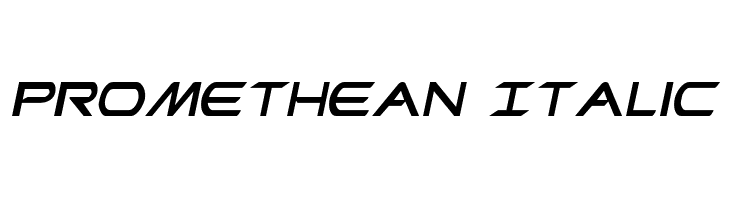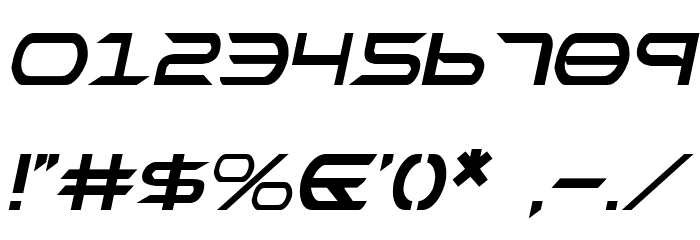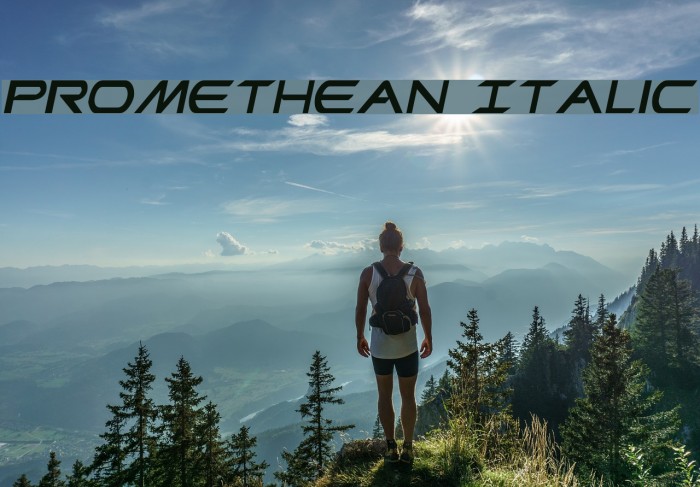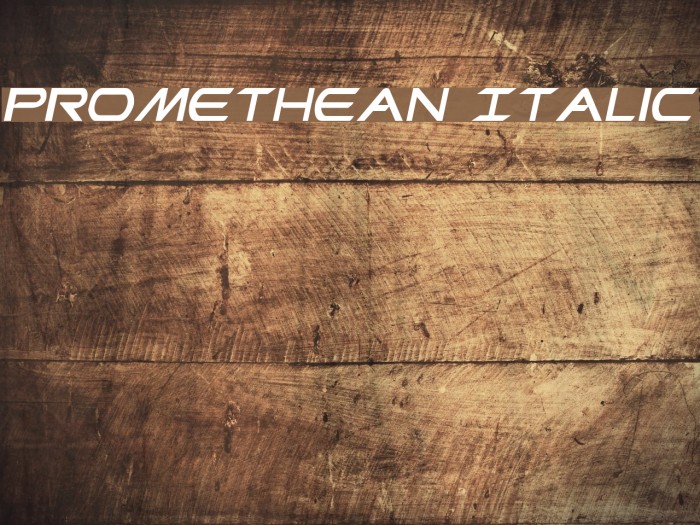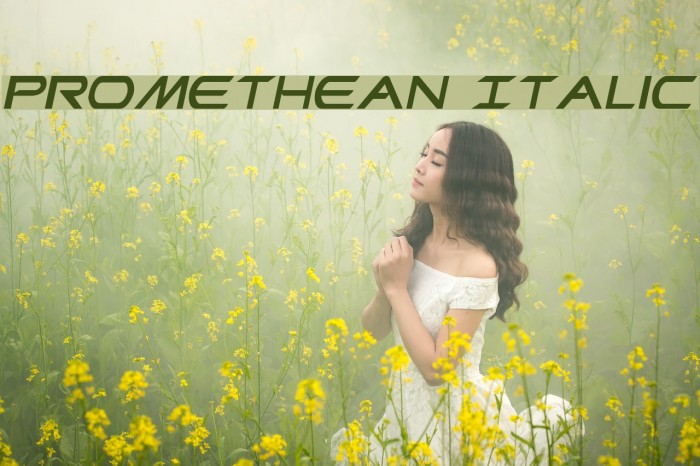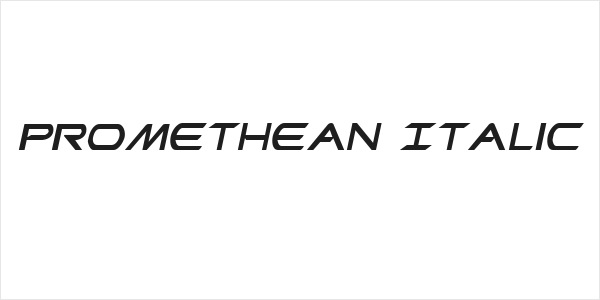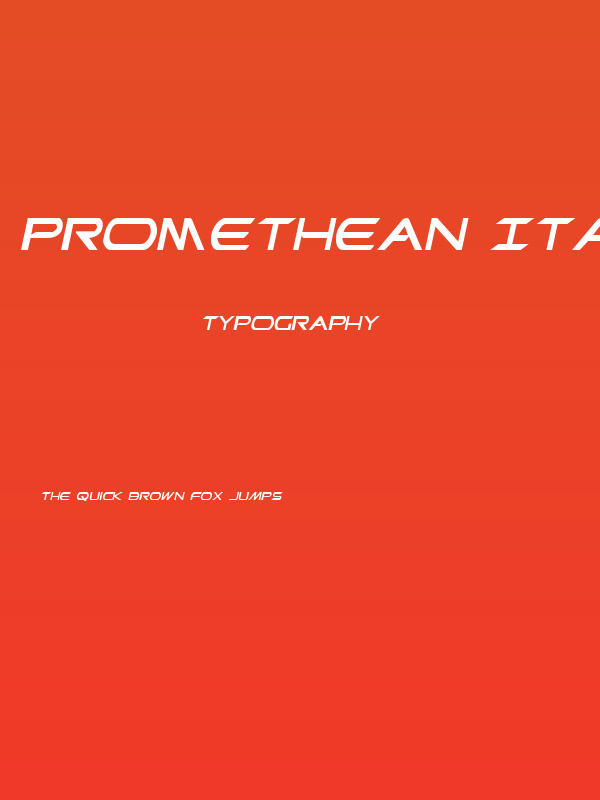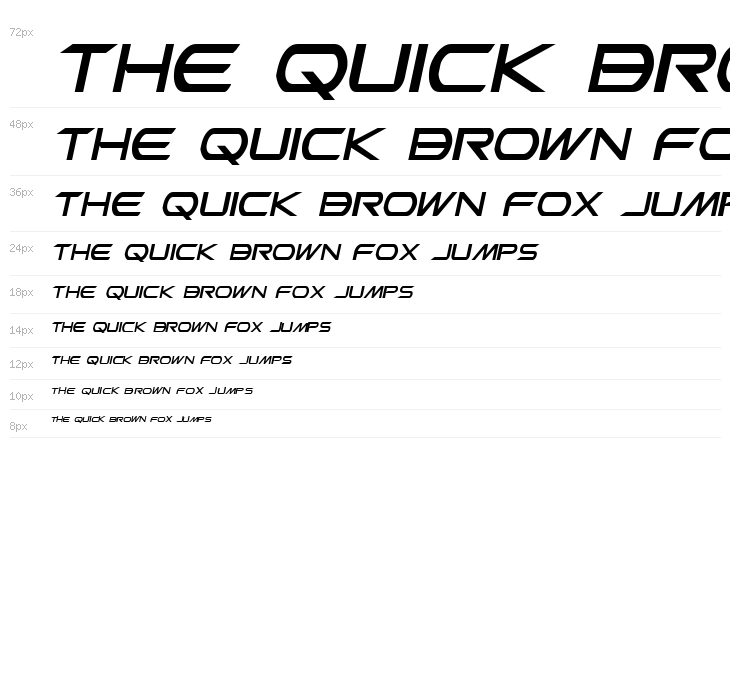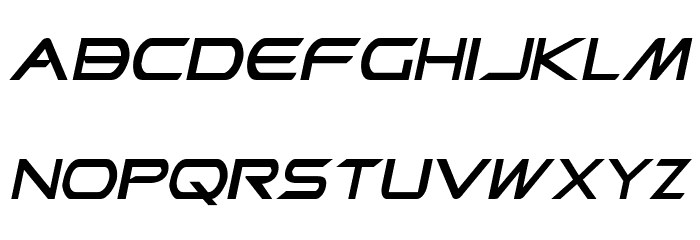
Promethean Italic Font
Promethean Italic Description
This font features a sleek, futuristic design with italicized characters that convey a sense of motion and speed. The angular, geometric shapes of the letters give it a modern and dynamic appearance, making it ideal for projects that require a cutting-edge look. The uppercase and lowercase letters maintain a consistent style, with sharp edges and a slight slant that enhances its aerodynamic feel. The numerals and special characters are crafted with the same attention to detail, ensuring uniformity across all glyphs. This font's unique style makes it stand out, offering a bold statement for any design.
| Use Case | Logos, Headlines, Branding |
| Proposed Projects | Ideal for technology branding, sports team logos, automotive advertisements, and sci-fi themed projects. |